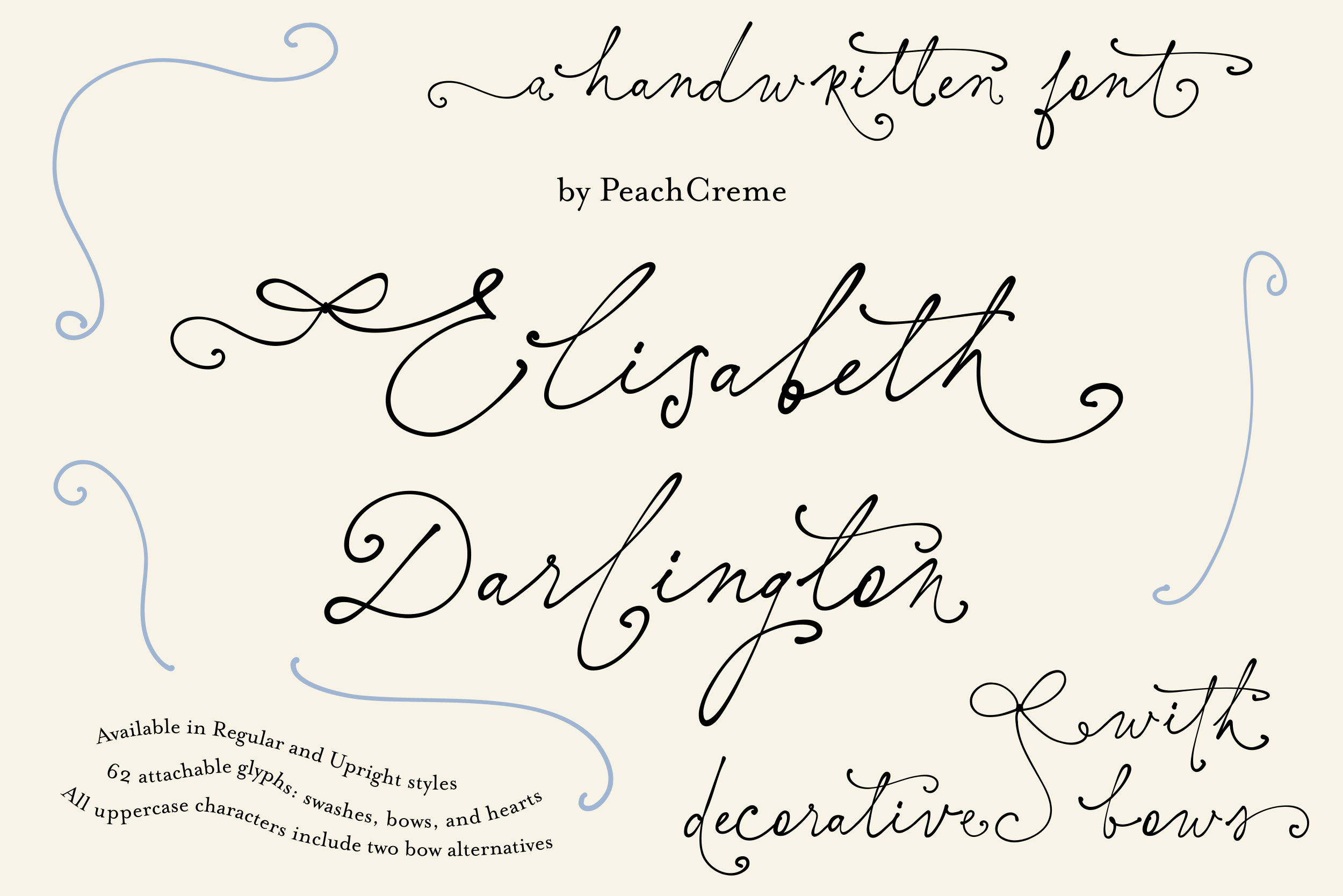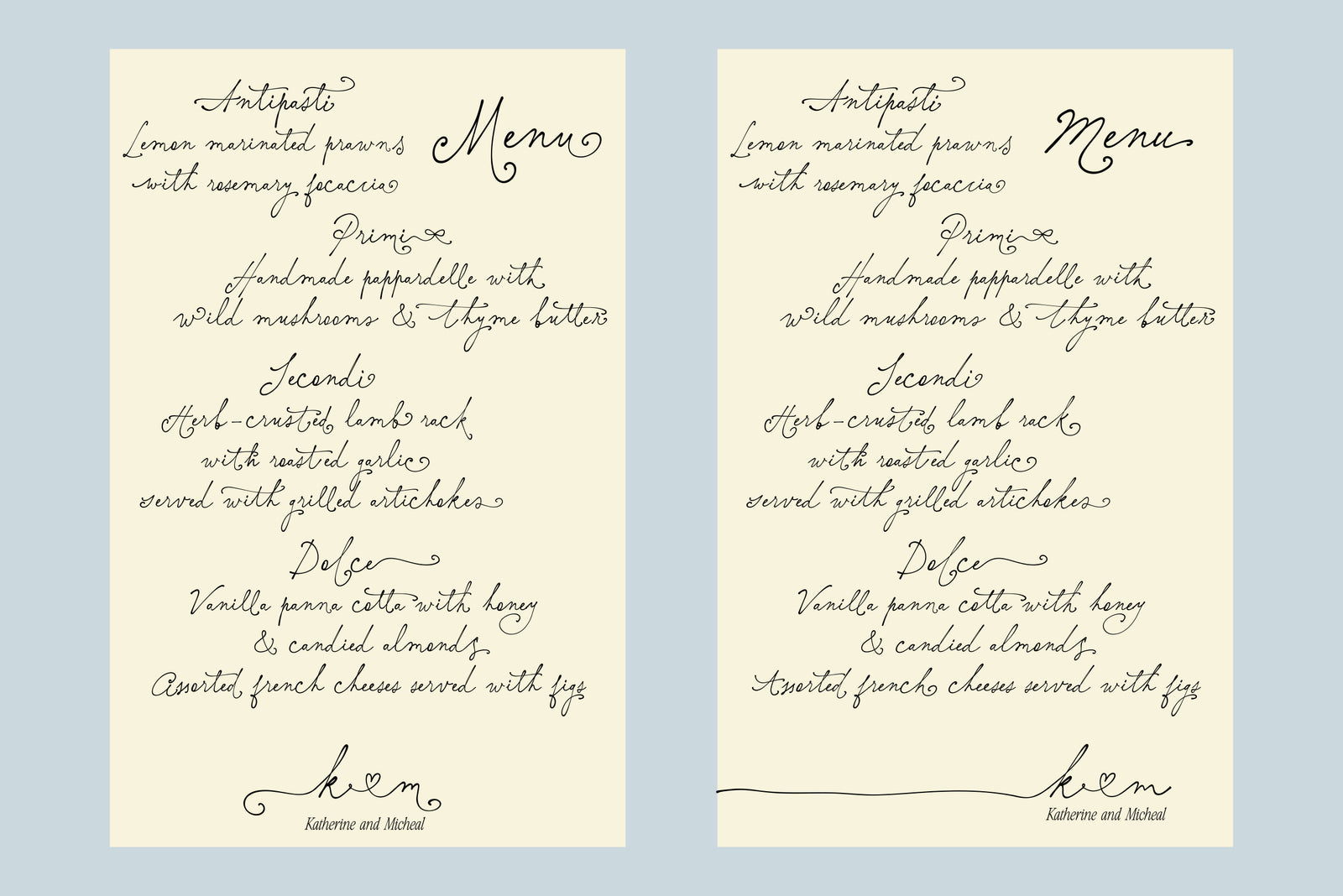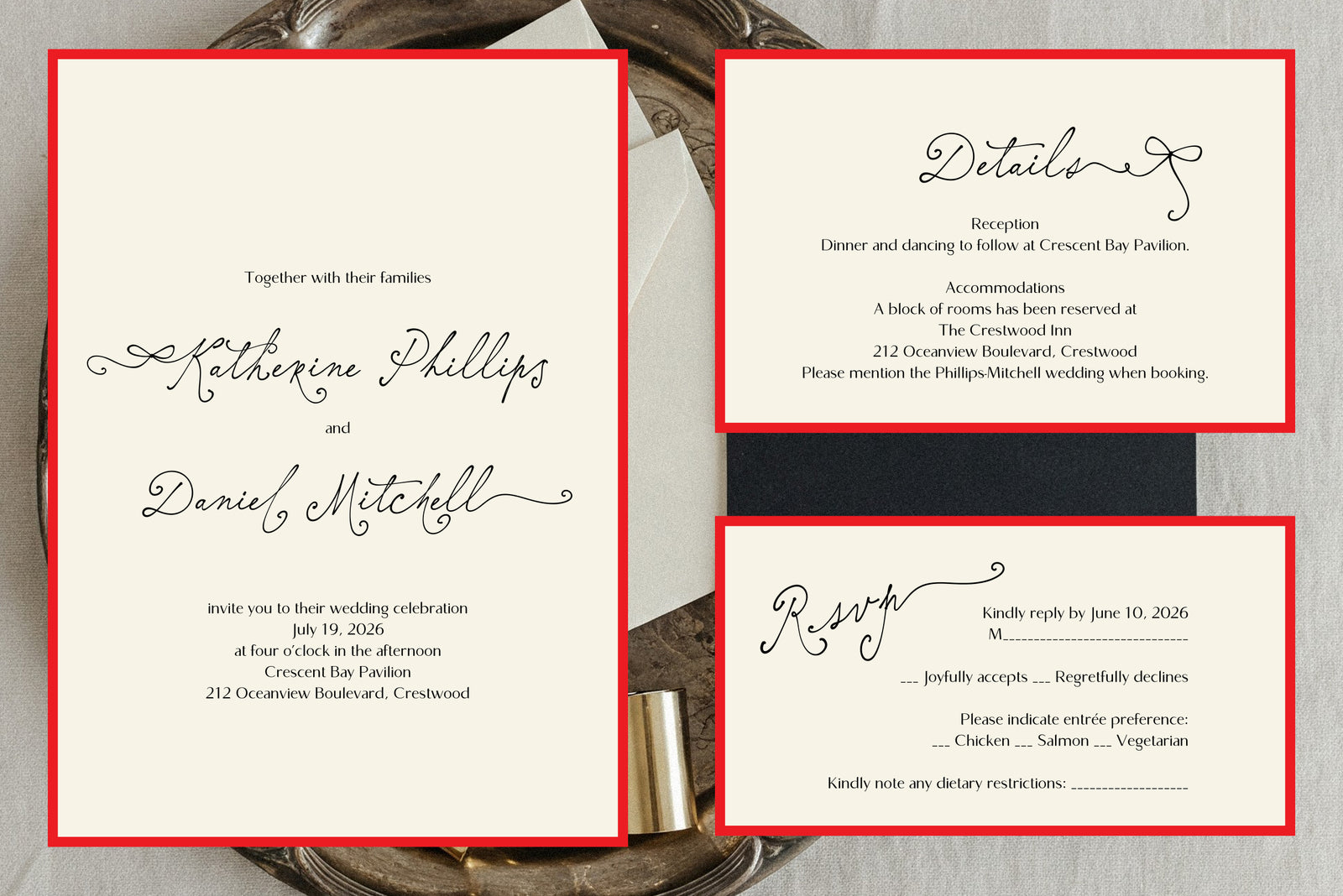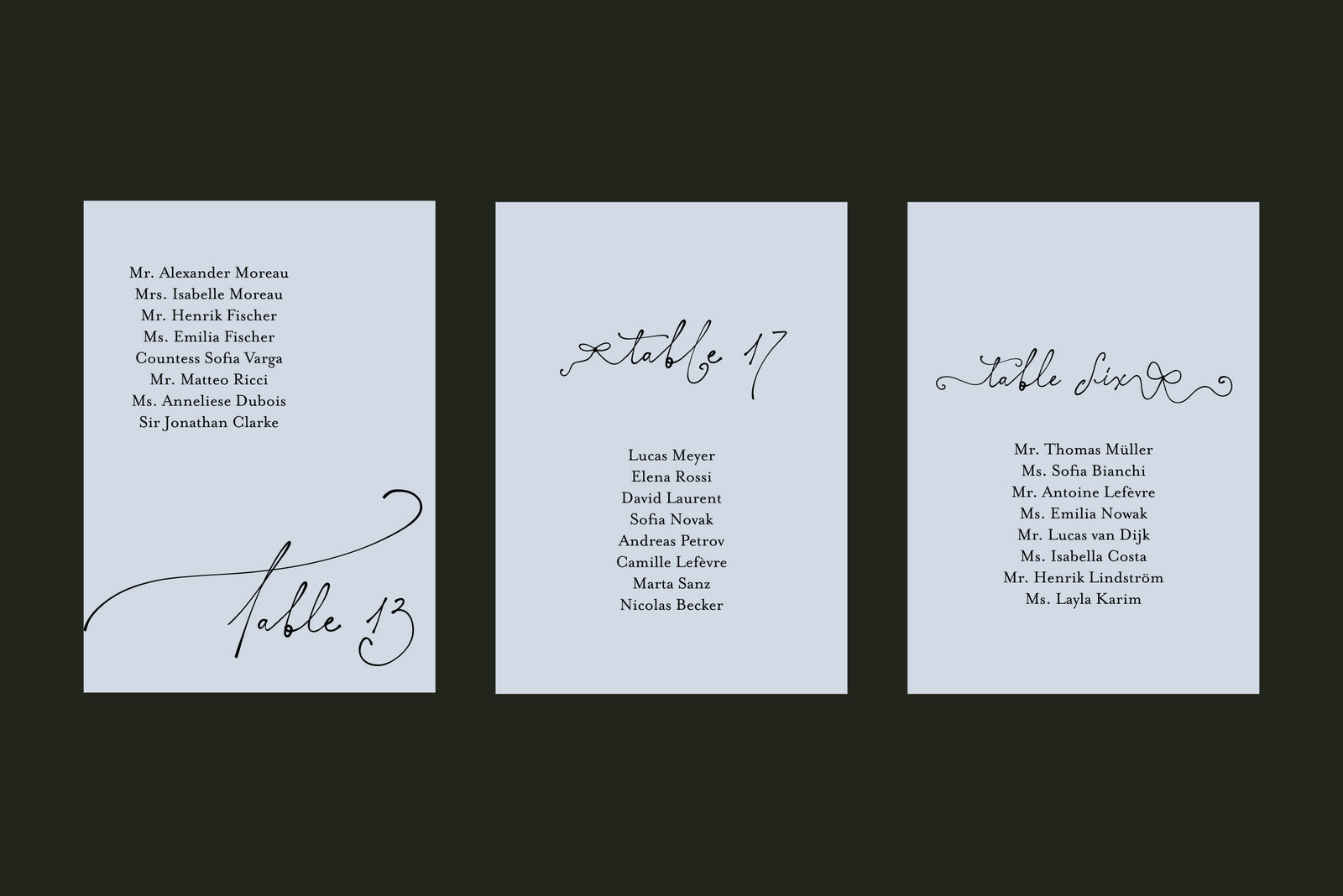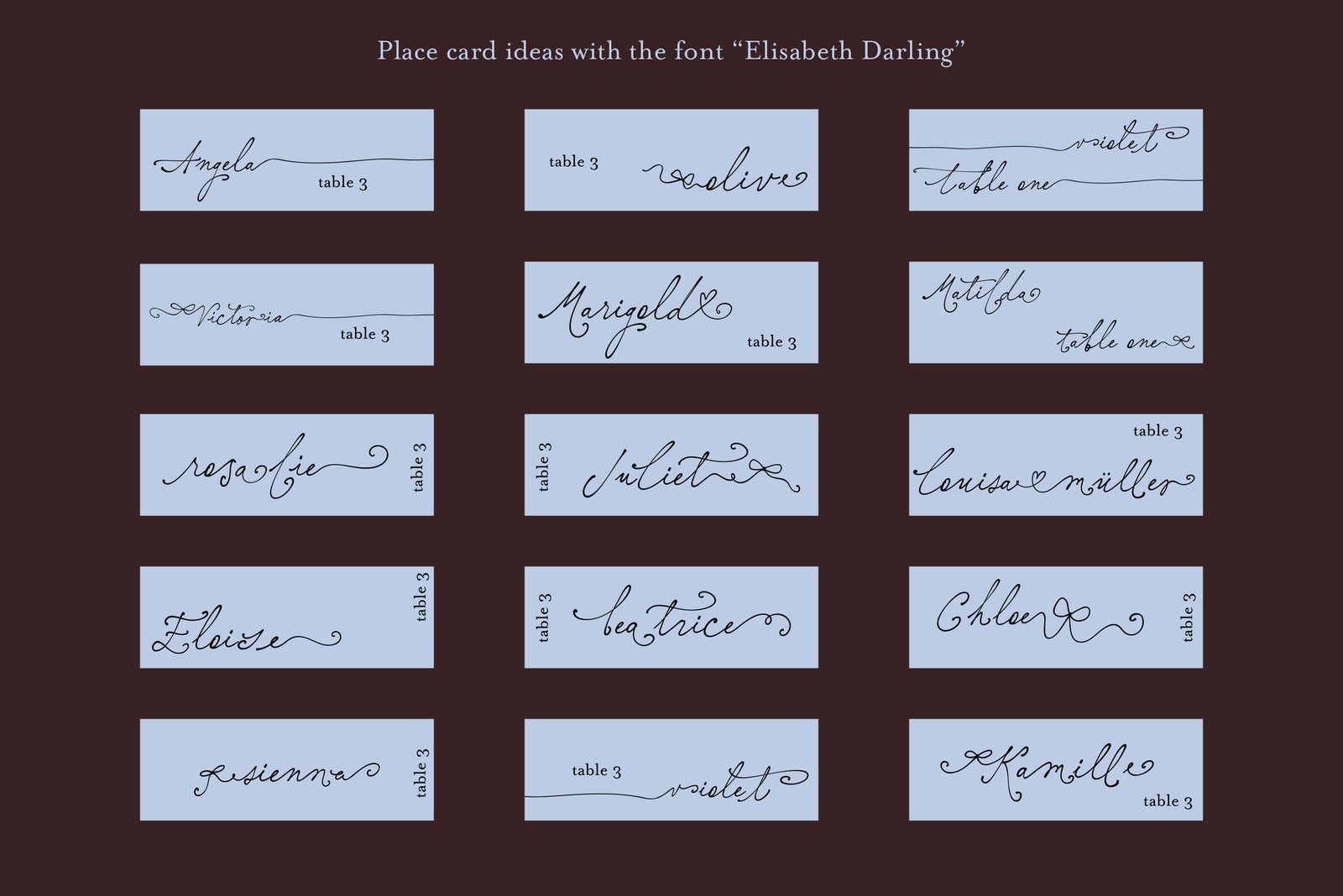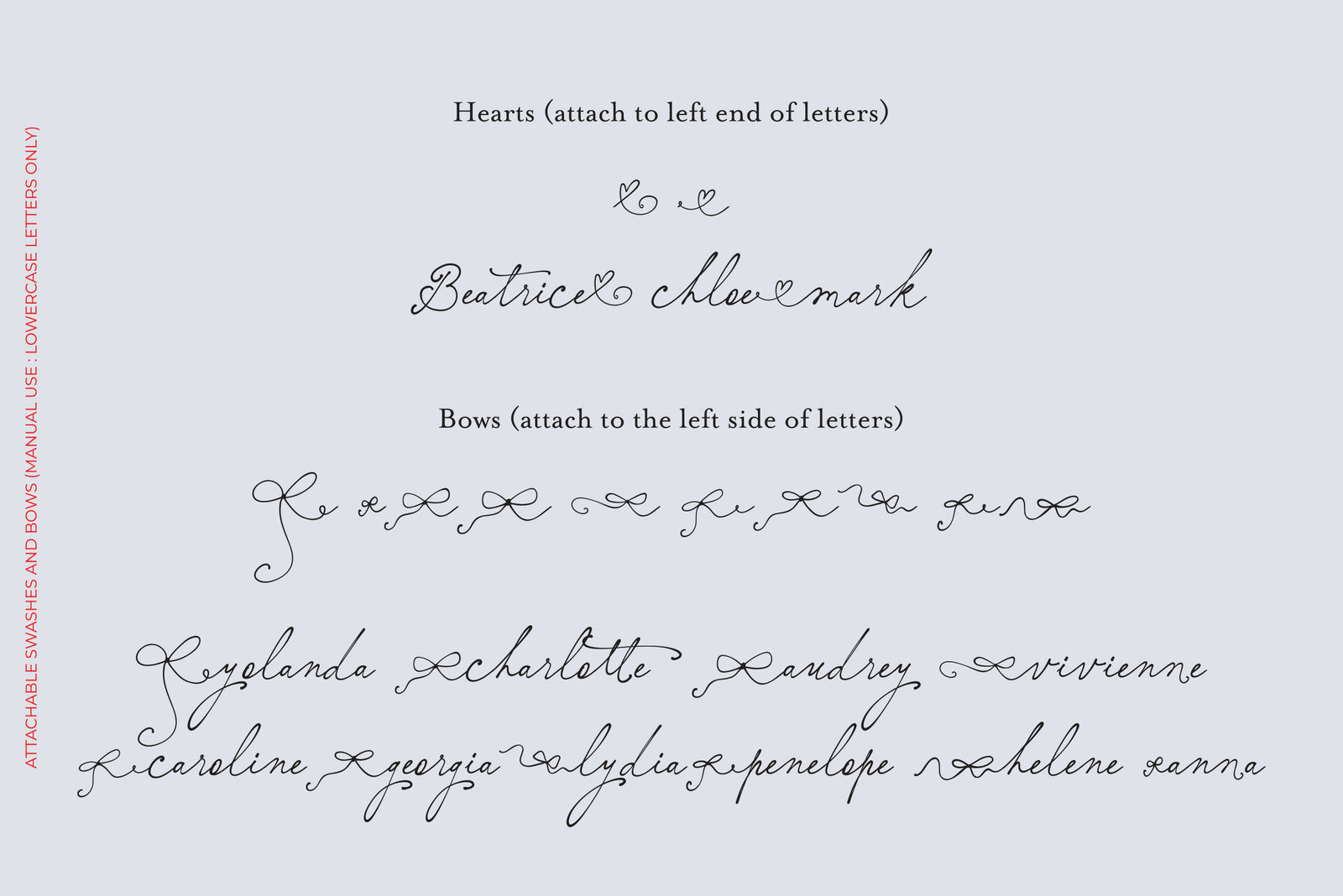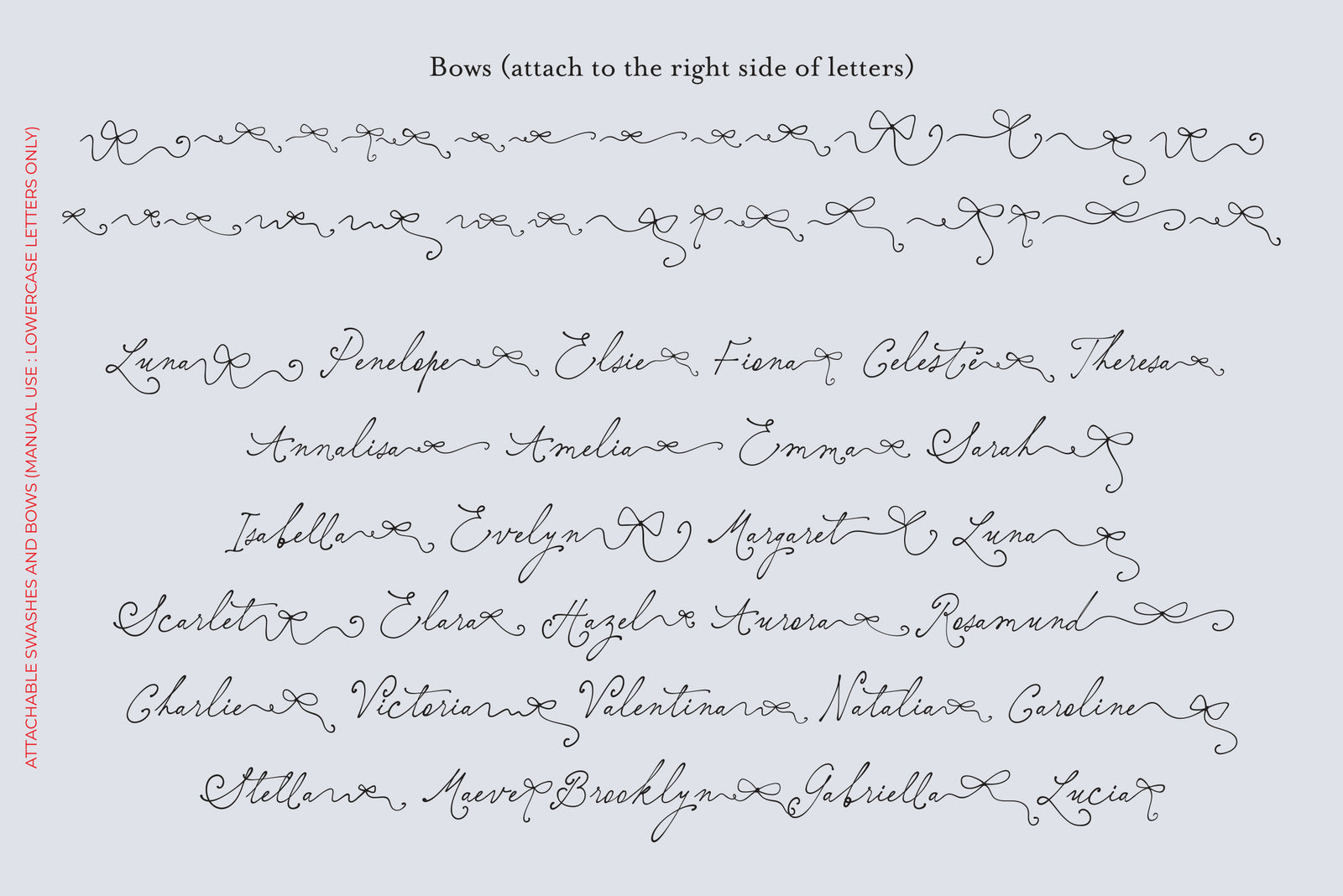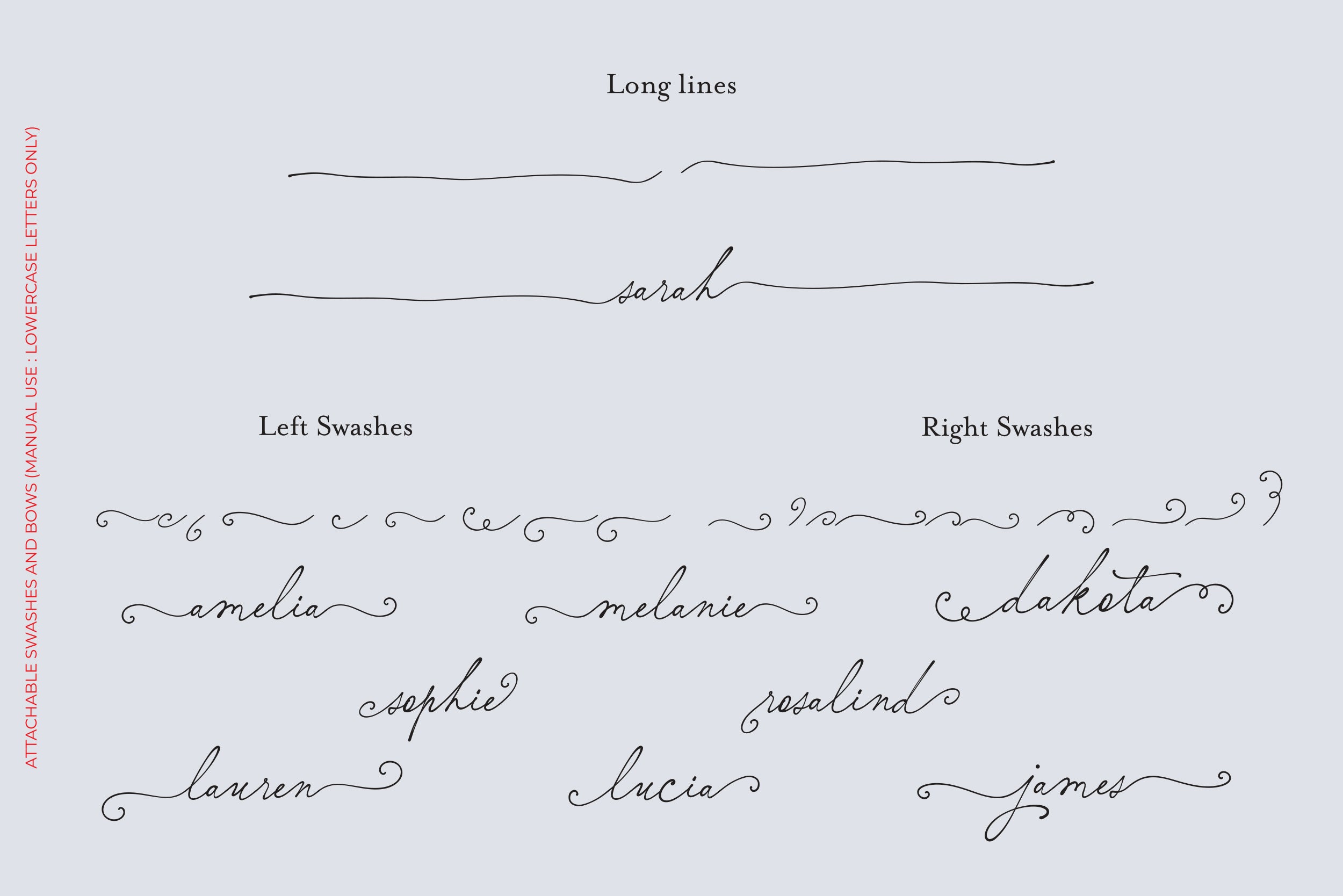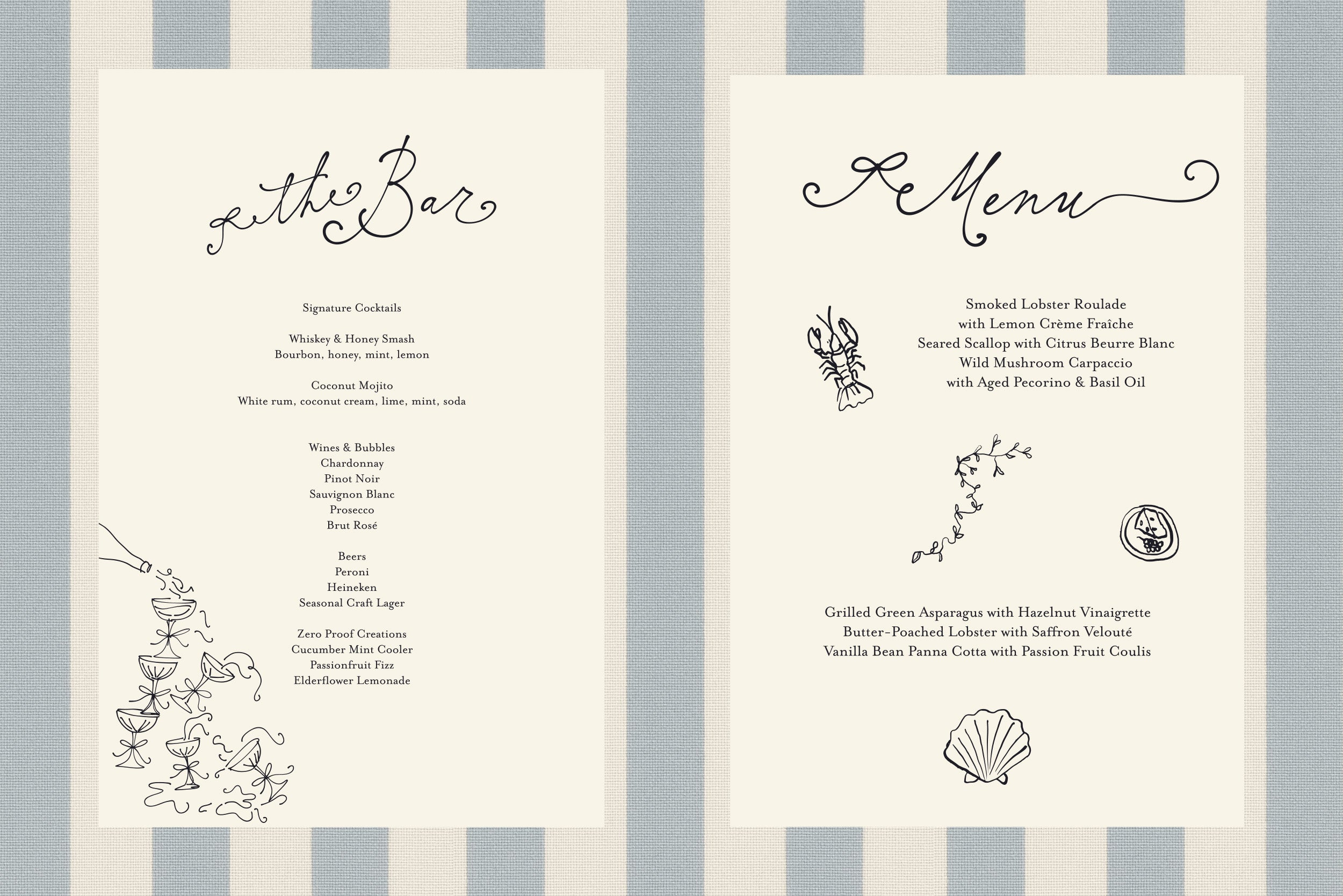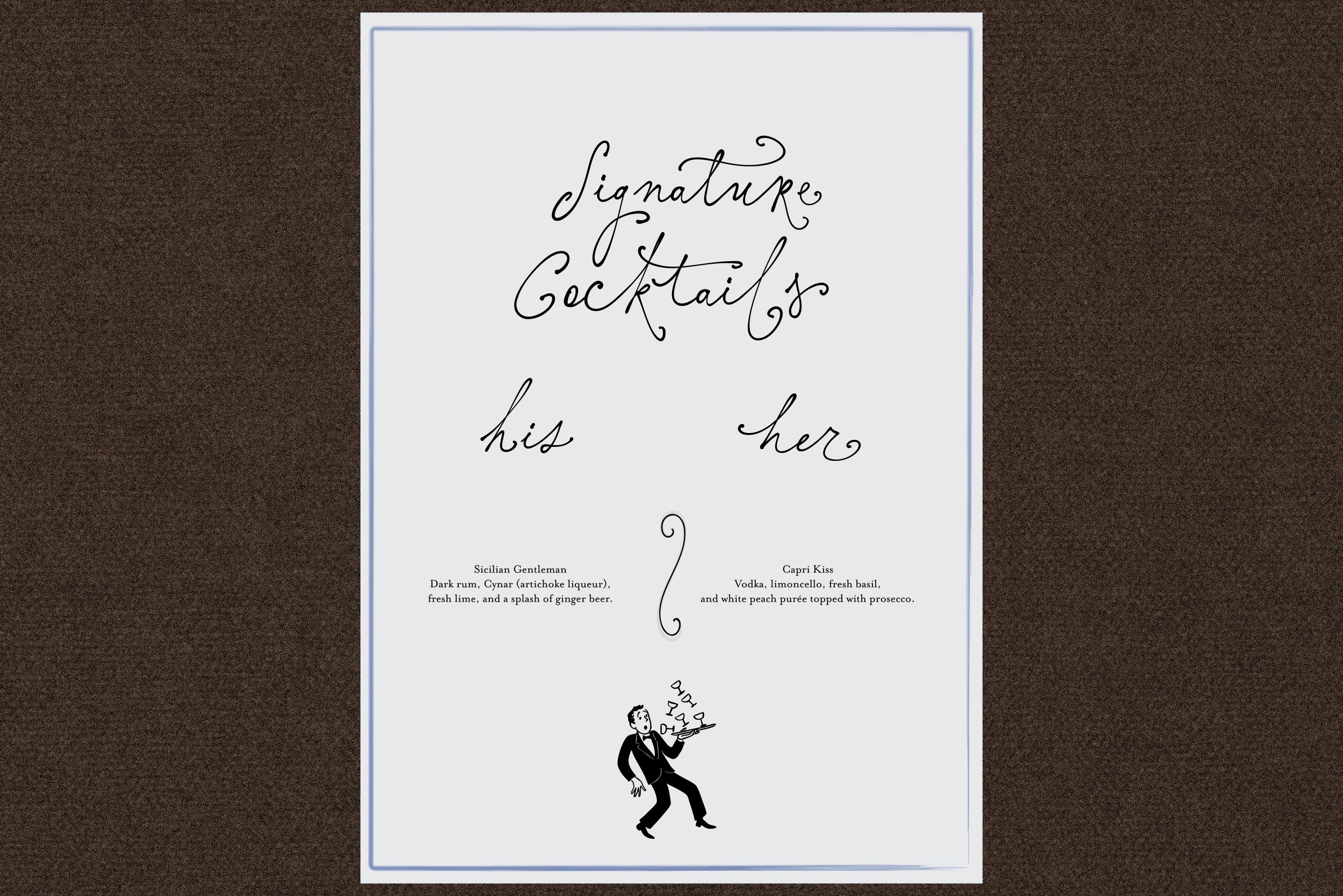
Elisabeth Darlington // Font with Bows
Elisabeth Darlington has been in the making for quite some time. I set out to design a script where the letters connect in a natural flow but still keep a spontaneous, handwritten character. It’s not the kind of script where letters simply stand side by side. I worked to give it a sense of movement and authenticity.
The font comes in two styles: Regular and Upright (for a slightly straighter look).
There are two kinds of swashes included. First, the attachable swashes : these can be added to lowercase letters. Please note that for seven specific letters, where I chose to keep the original gel ink effect, swashes won’t connect automatically. You can swap these for alternate versions if you’d like to add swashes.
The second type is non-attachable swashes, which are built into certain letters. These follow a different style from the attachable ones, except for a few uppercase letters at the beginning of words where the swash styles are similar. You can mix and match them as you like.
Elisabeth Darlington includes 719 glyphs.
The font supports Basic Latin, Western European, and Central European languages.